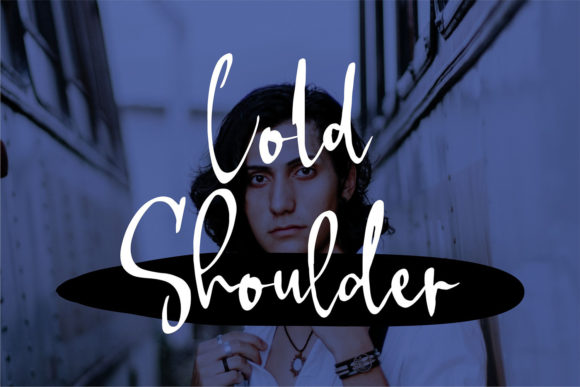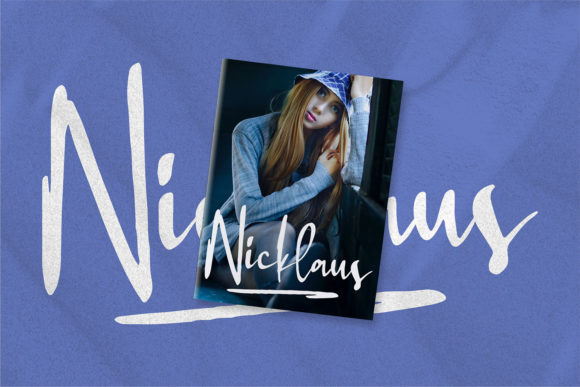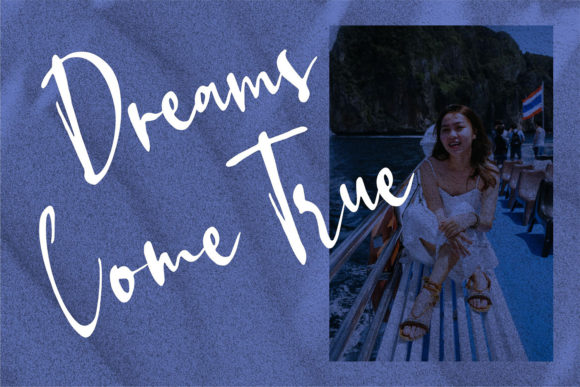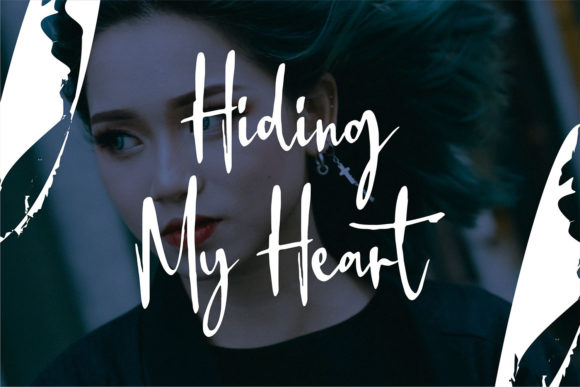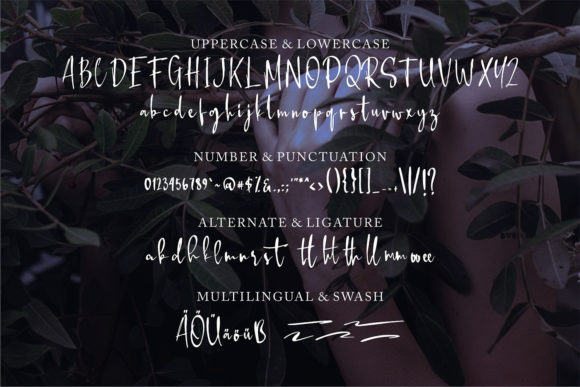
Introduction to Rasputin Font
Have you ever been working on a creative project, pouring your heart and soul into every detail, only to find that the perfect font is just out of reach? That was the case for many designers until the introduction of the Rasputin Font. This stylish and classic script font is a game-changer for designers looking to add an expensive, polished touch to their work.
Key Features of Rasputin Font
- High-quality, unique font design perfect for creative projects and design resources.
- Supports a range of languages and characters, making it a versatile design resource for international projects.
- Unique, ornate design elements and flourishes add a touch of elegance and sophistication to any creative project.
Honest Review: Rasputin Font
I recently stumbled upon the Rasputin Font while working on a creative project, and I must say it’s a great design resource. The font has a unique, mysterious vibe that can add a touch of elegance to any design.
Here are some things that work well with the Rasputin Font: ✨
- High-quality design: The font is well-crafted and has a professional look to it.
- Limited customization options: The font is quite specific in its design, and you may not be able to make too many changes to it.
- May not be suitable for all design styles: The Rasputin Font has a distinct, vintage vibe that may not be suitable for modern or minimalist designs.
Rasputin Font
The Rasputin Font is a unique, high-quality design resource ideal for creative projects. With a transparent background, this font is versatile and can be used in a variety of applications.
Getting the Most Out of Rasputin Font
To get the most out of this font, consider the following tips:
- Experiment with different font sizes and styles to achieve the desired effect.
- Combine the Rasputin Font with other design elements to create a unique visual identity.
The Rasputin Font is ideal for:
- Designing invitations and event materials.
- Creating social media graphics and advertisements.
- Developing branding and marketing materials.
Alternatives to Rasputin Font
Compared to Rasputin Font, Pacifico Font has a more relaxed and casual appearance, making it suitable for projects that require a laid-back feel. While Rasputin Font has a more mysterious and exotic feel, Pacifico Font is better suited for projects that require a sense of calm and serenity.